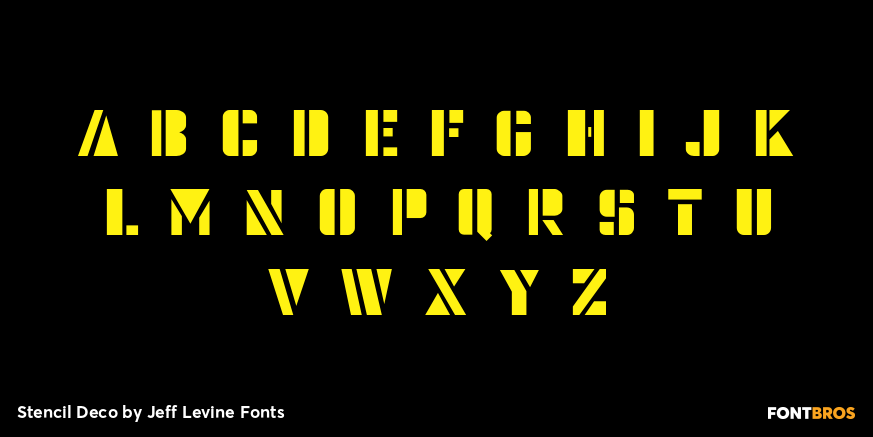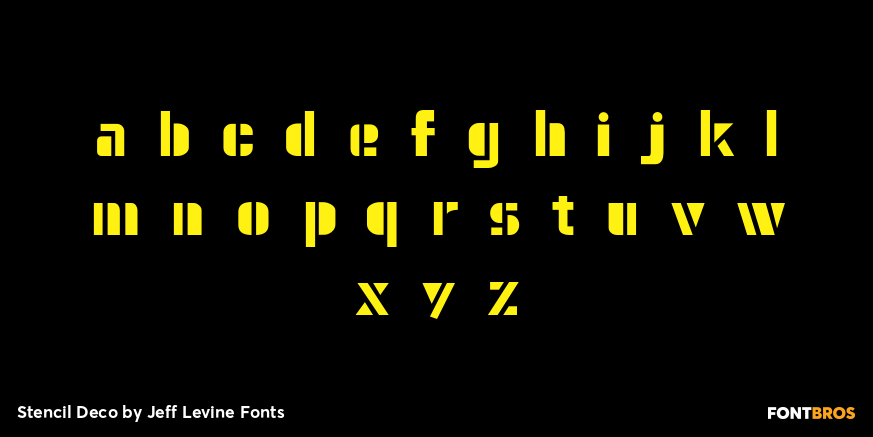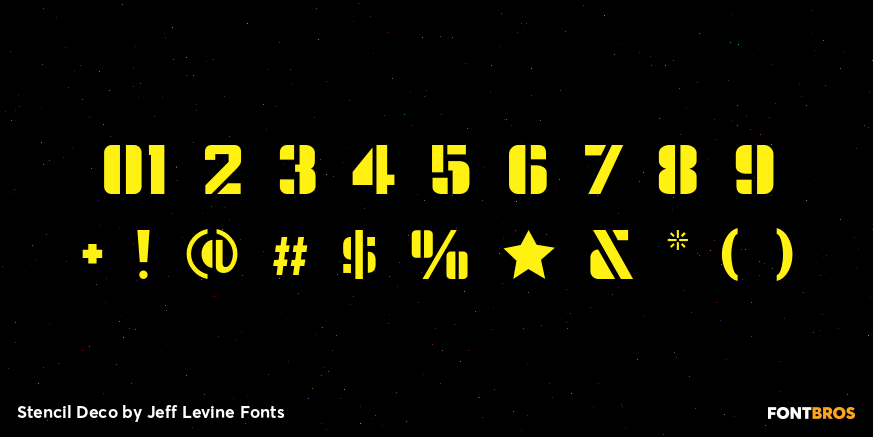
Stencil Deco
Stencil Deco JNL was an experimental modification of Jeff Levine's Cardboard Cutouts JNL font, originally designed from an authentic stencil source circa the 1950s. This version is a fusion of the Art-Deco style and a modern, trendy approach to the stroke weights.
Stencil Deco JNL Regular by Jeff Levine Fonts